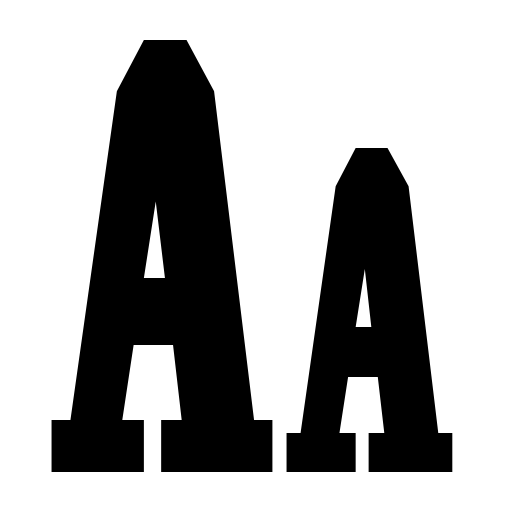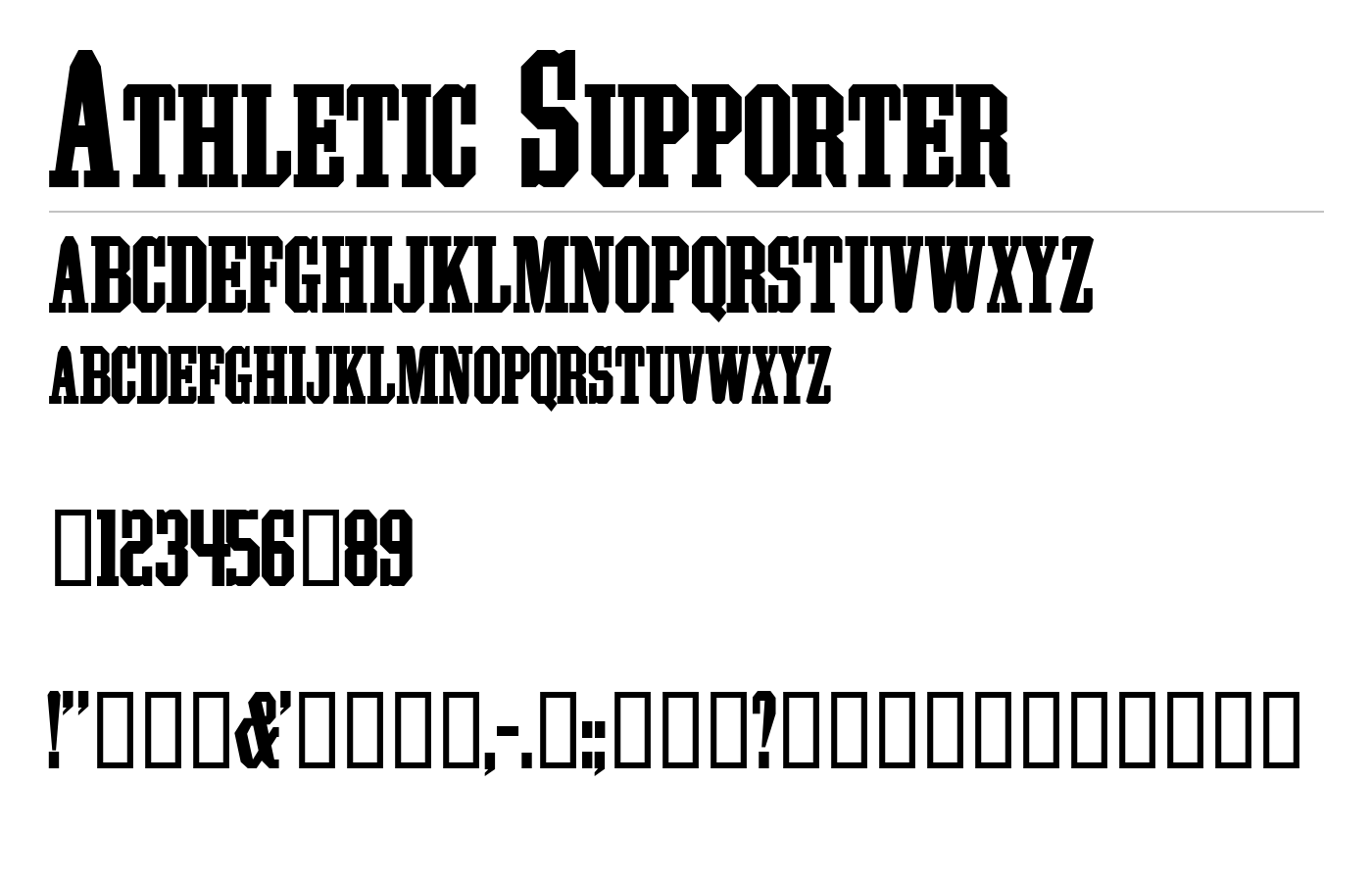
Athletic Supporter is a bold slab serif font with a strong, condensed structure and high stroke contrast that gives it a commanding and vintage sports vibe. Its thick blocky serifs and all-uppercase style make it perfect for athletic branding, team logos, and bold headlines where a powerful, energetic impression is needed. This font works best in designs that aim to evoke strength, tradition, and competitive spirit.
Athletic Supporter Font